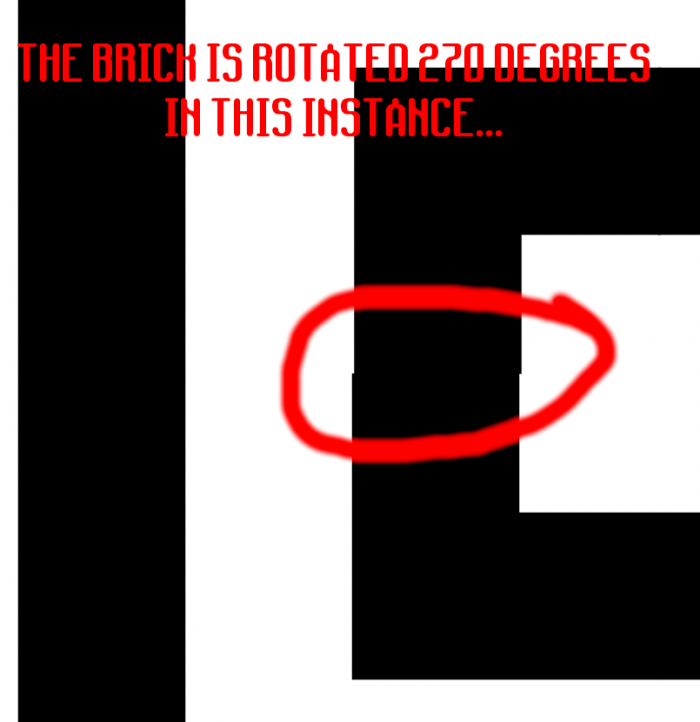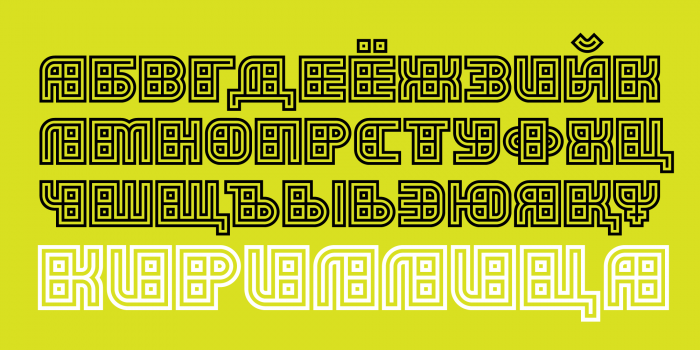
Notes to future self:
- Modify glyphs if/when the requested below brick is added
- Find a better way for Cyrillic descenders (Ц, Щ etc.). Alternative Ф? Needs a better Ұ,ұ
- Needs kerning
Very deco entrance! I especially like the M, Q and almost the entire Cyrillic set. Good luck with the jury, compañero.
Such a simple idea, yet the design is intricate and surprisingly complex
I love this contemporary and radically modular approach to art deco!
@time.piece This fontstruction is me trying out the brick mentioned by Dmitriy here. But I really need the brick I mentioned in my opening post to make this FS more perfect :)
I think there seems to be a problem with the triline T-shaped brick… (And yes, that is the letter I in this font zoomed in by a lot)
@BWM That really isn't something I can control, it's more a rendering issue of Fontstructor. Yes, it's the T brick rotated so unless I create a brand new T brick there (or the upper corner) there's nothing else I can do.
update: Fixed Cyrillic letters with descenders e.g. Ц, but they were so hard to make...
I am recreating this one in Glyphs. If all goes well I will upload it to MyFonts.
How were you able to create + shaped bricks?